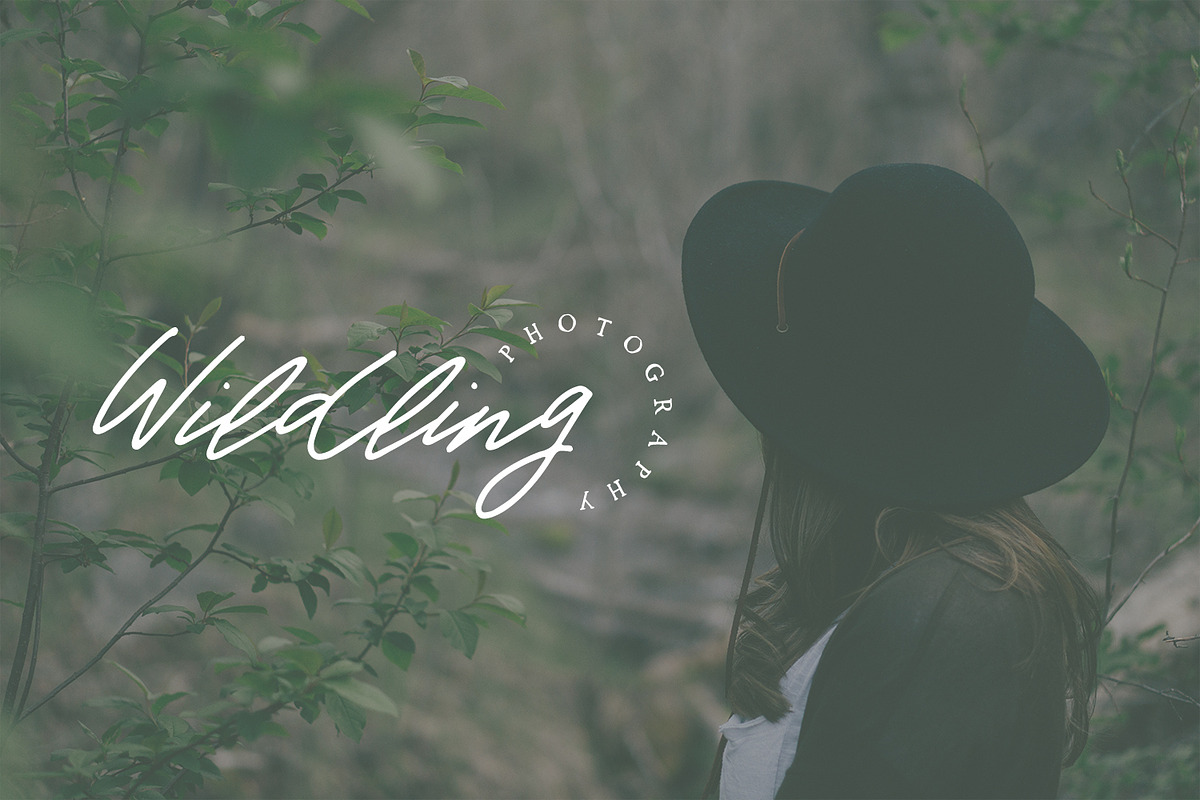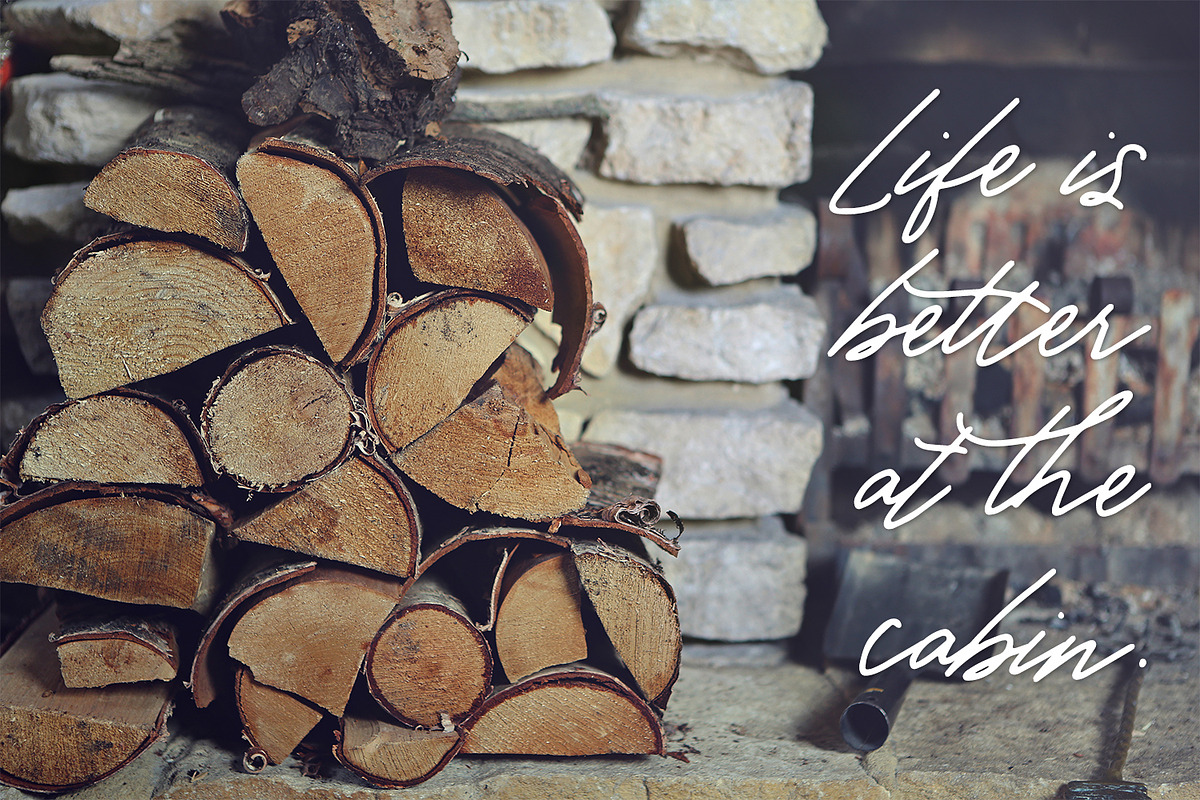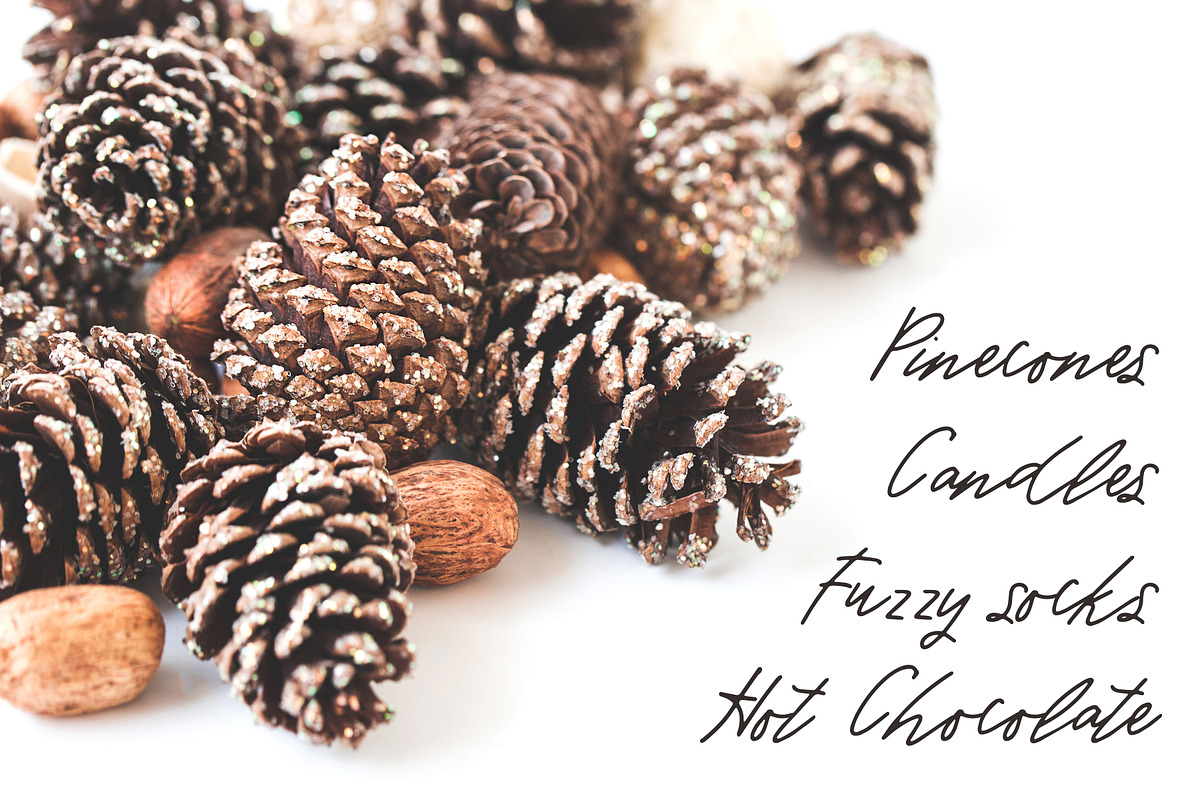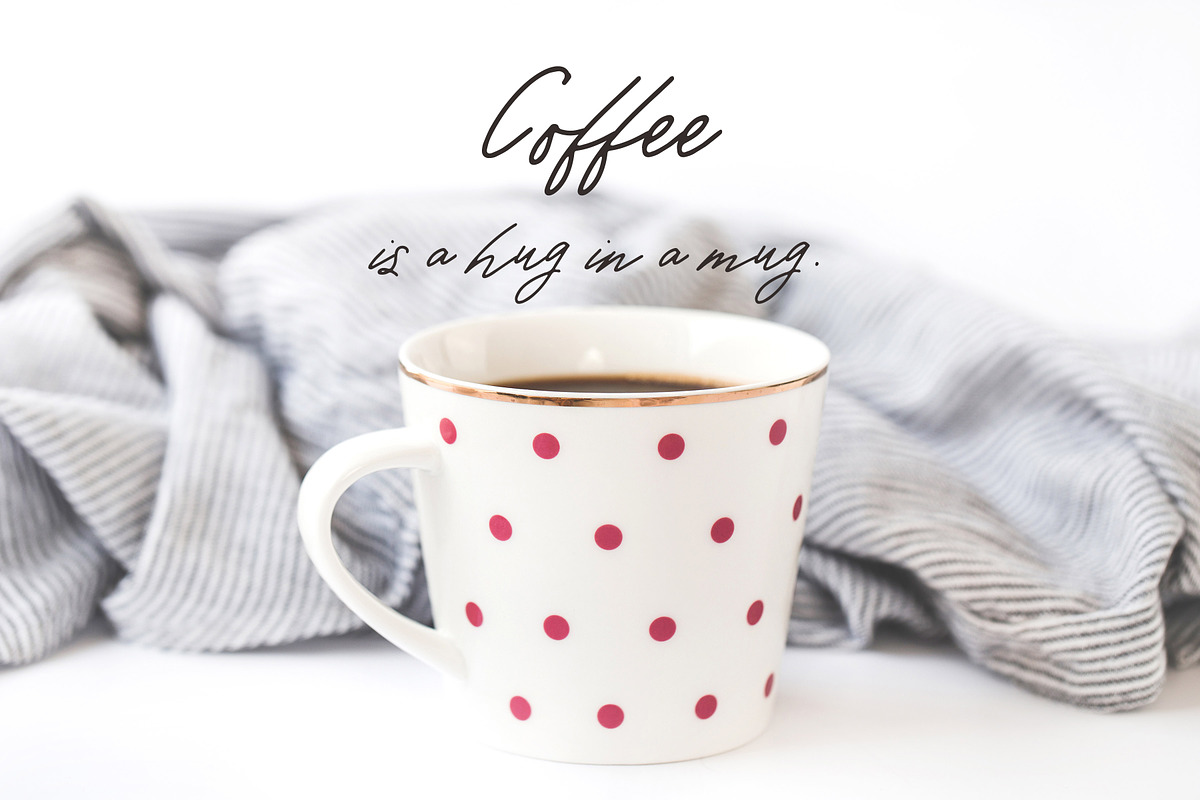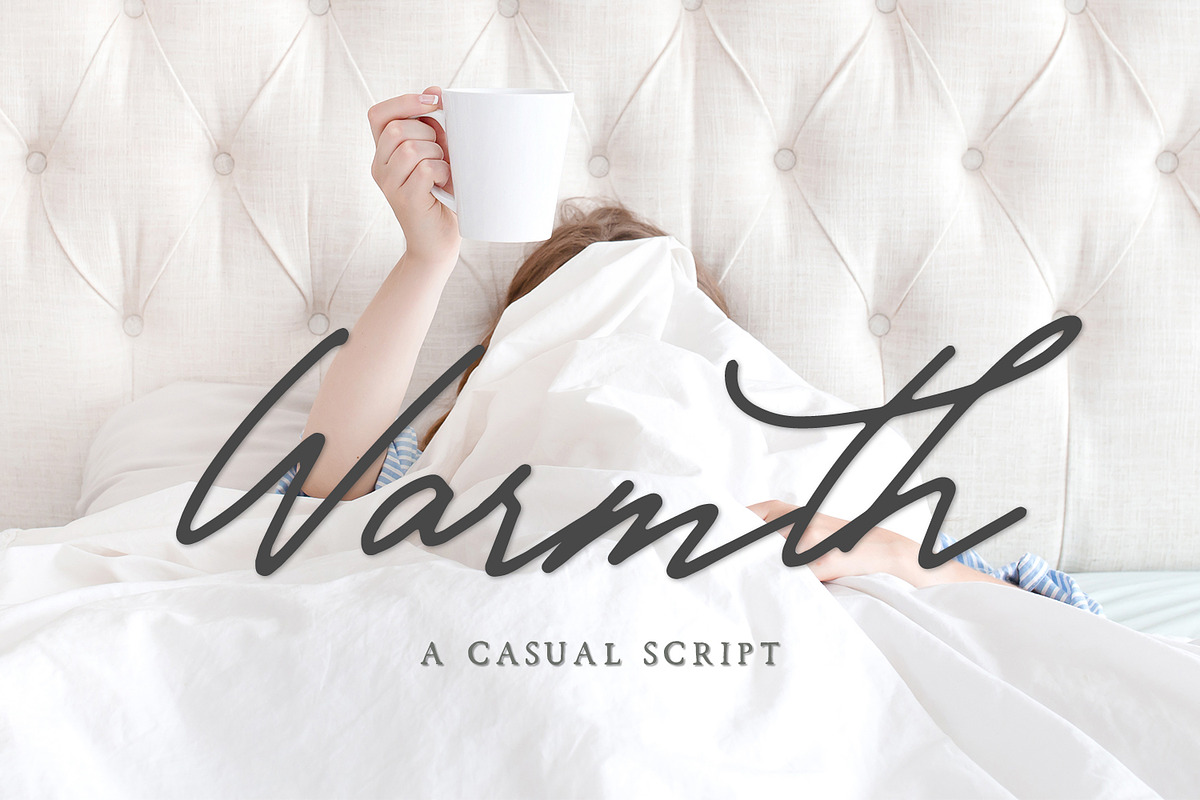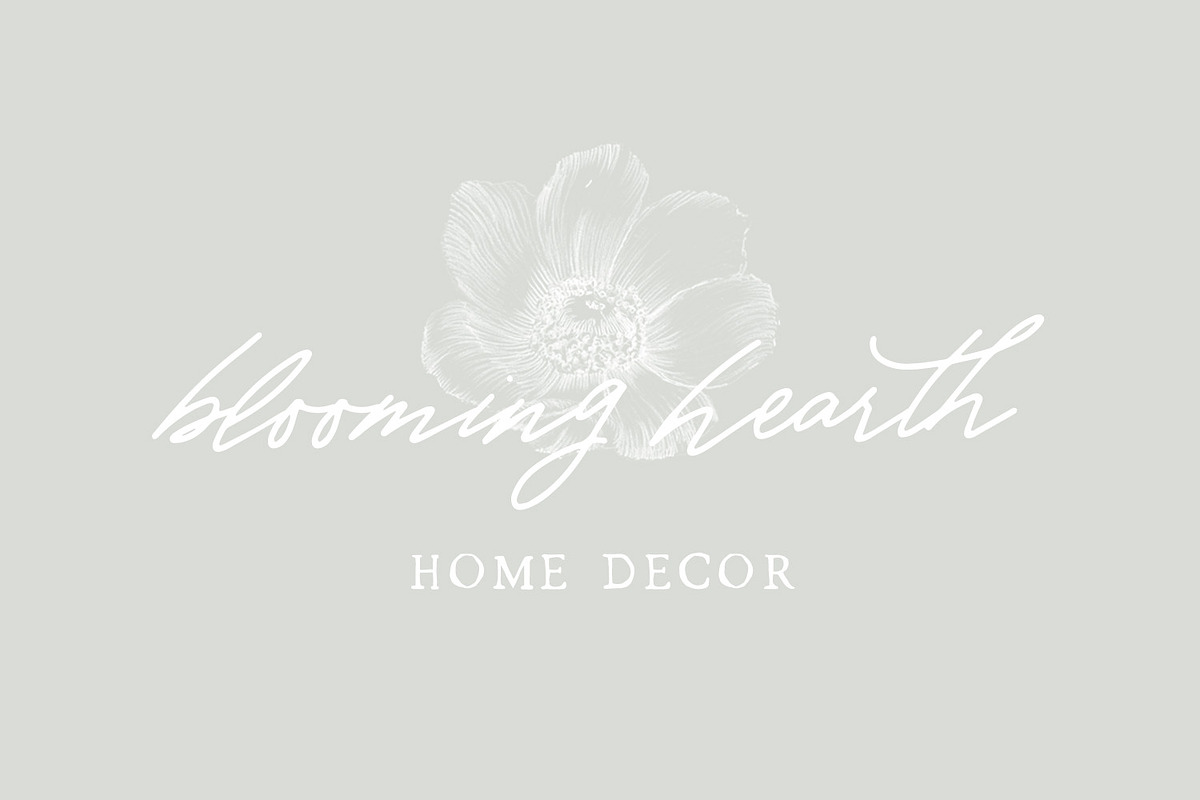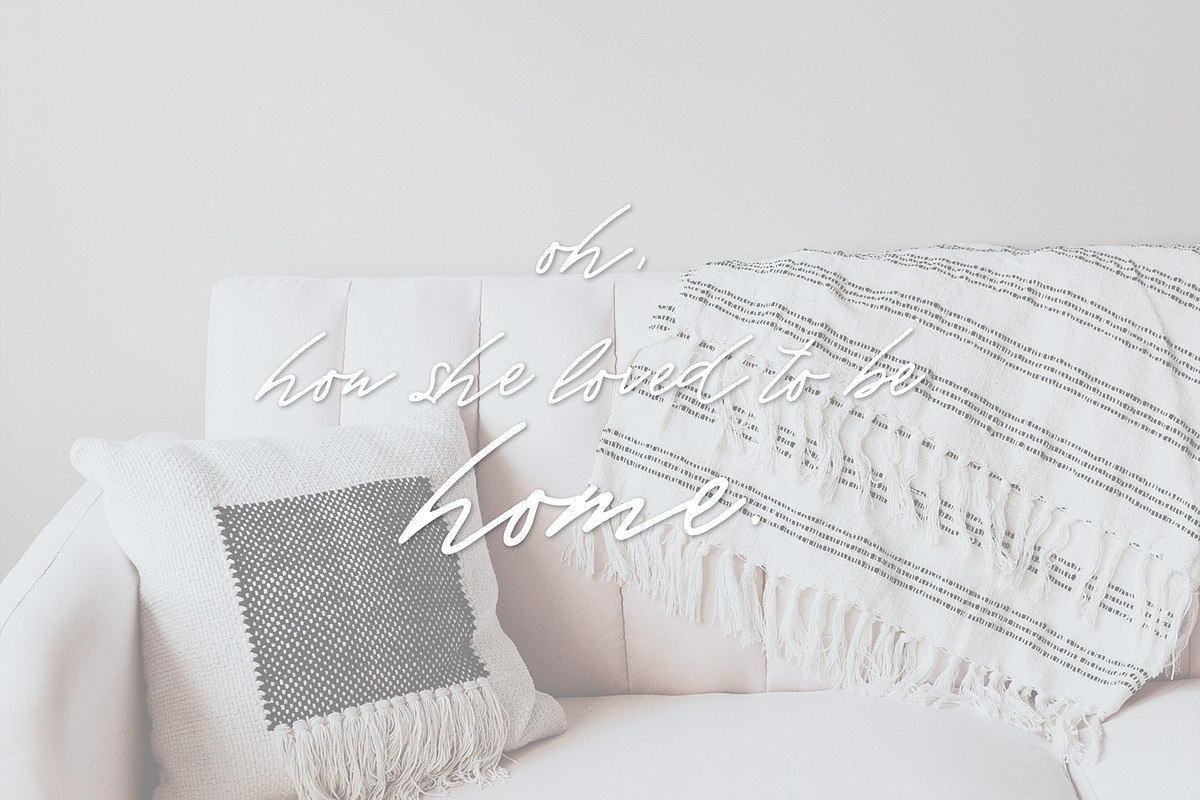
Warmth Script
Introducing Warmth, a casual, leaning script.
Warmth Script has a familiar feel, like your bed on a rainy day or a hot mug of coffee on an autumn morning — it’s an awesome addition to your font library for branding projects with an edgy, hand-written requirement, or invitations for a rustic, casual wedding or event. Use in logos, signatures, branding, print projects, invitations, and more! Pairs best with Spring Market for the perfect rustic-modern look.
Warmth includes Western European language support, and some common lovely ligatures!